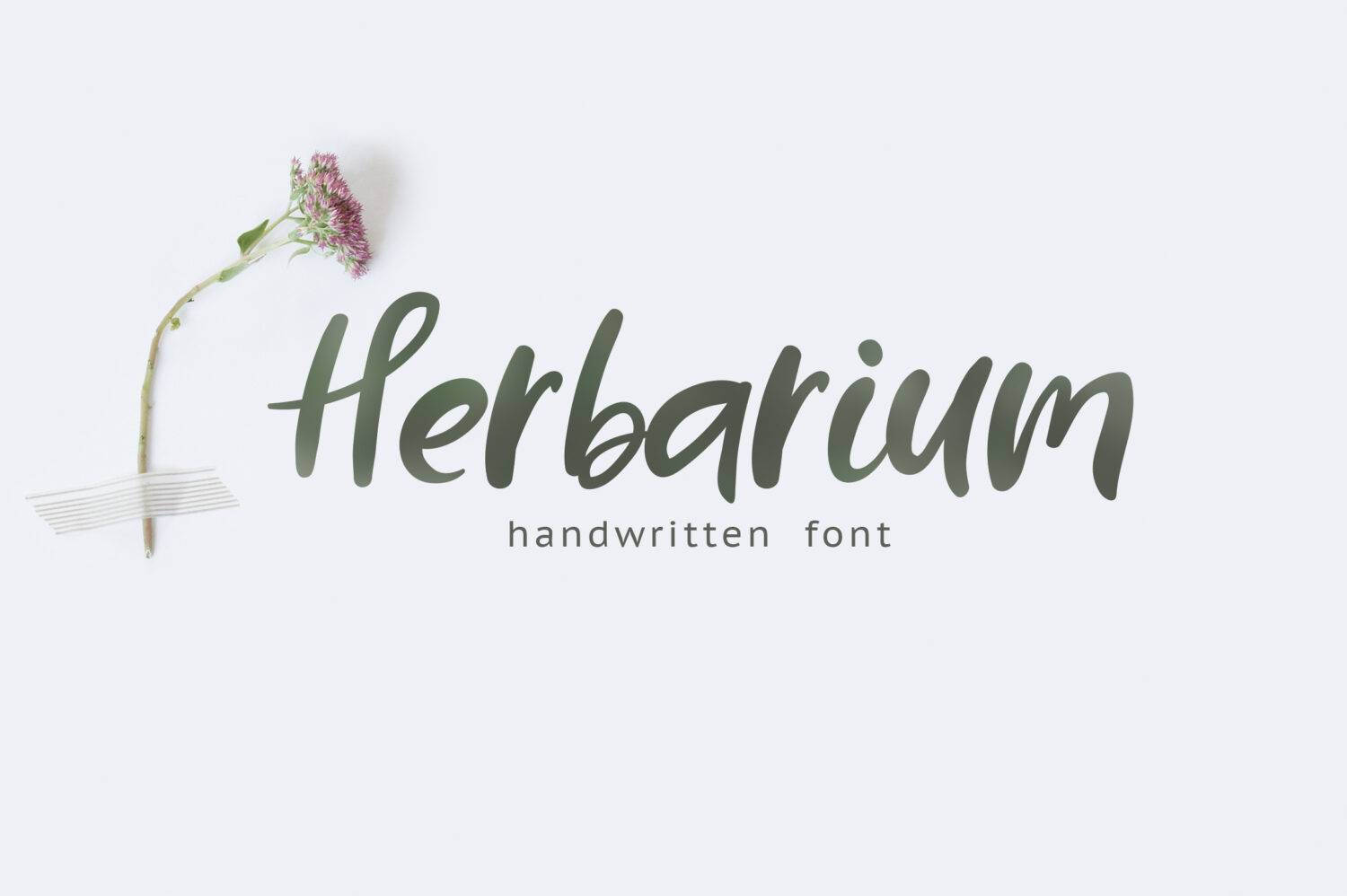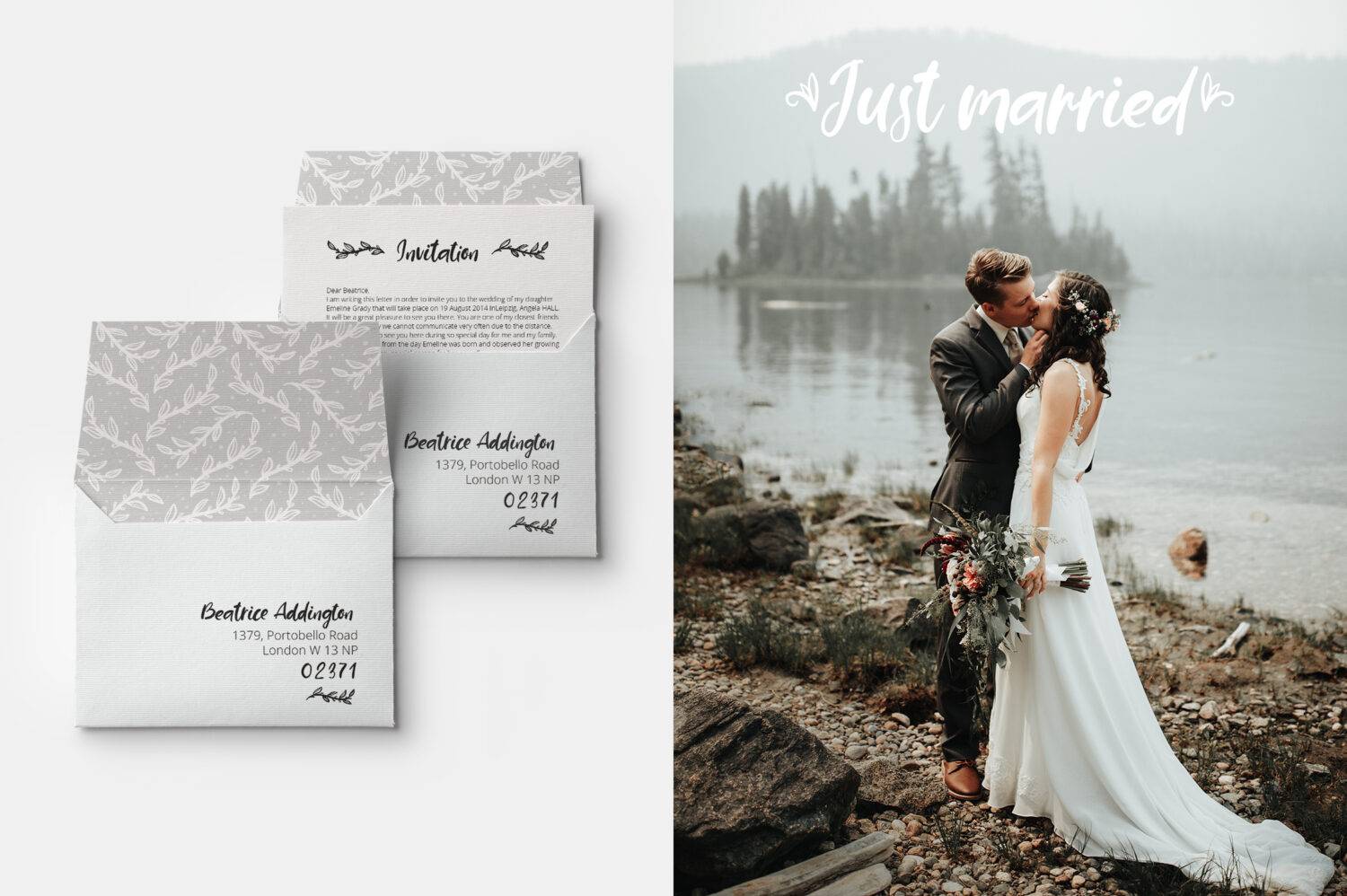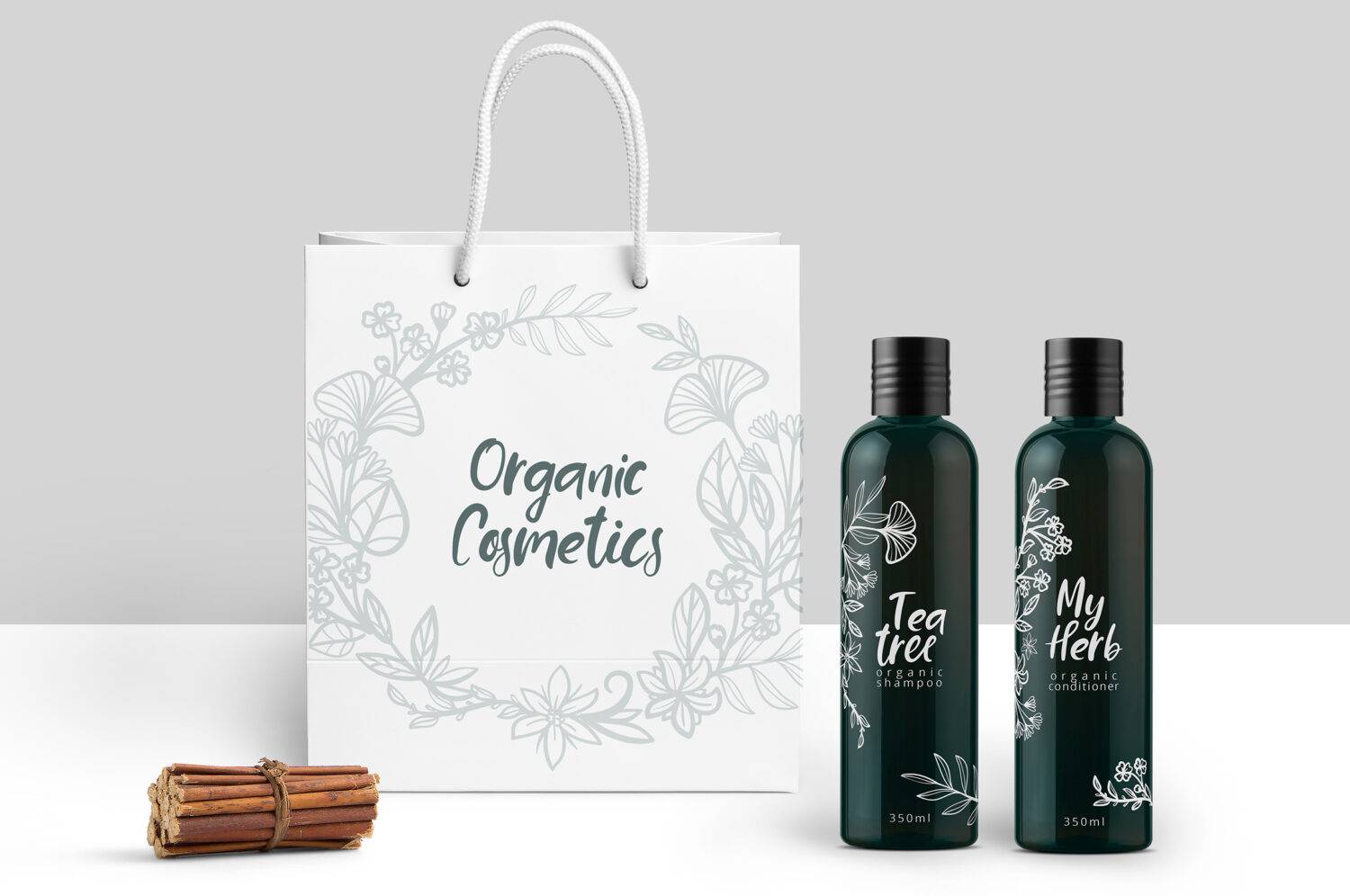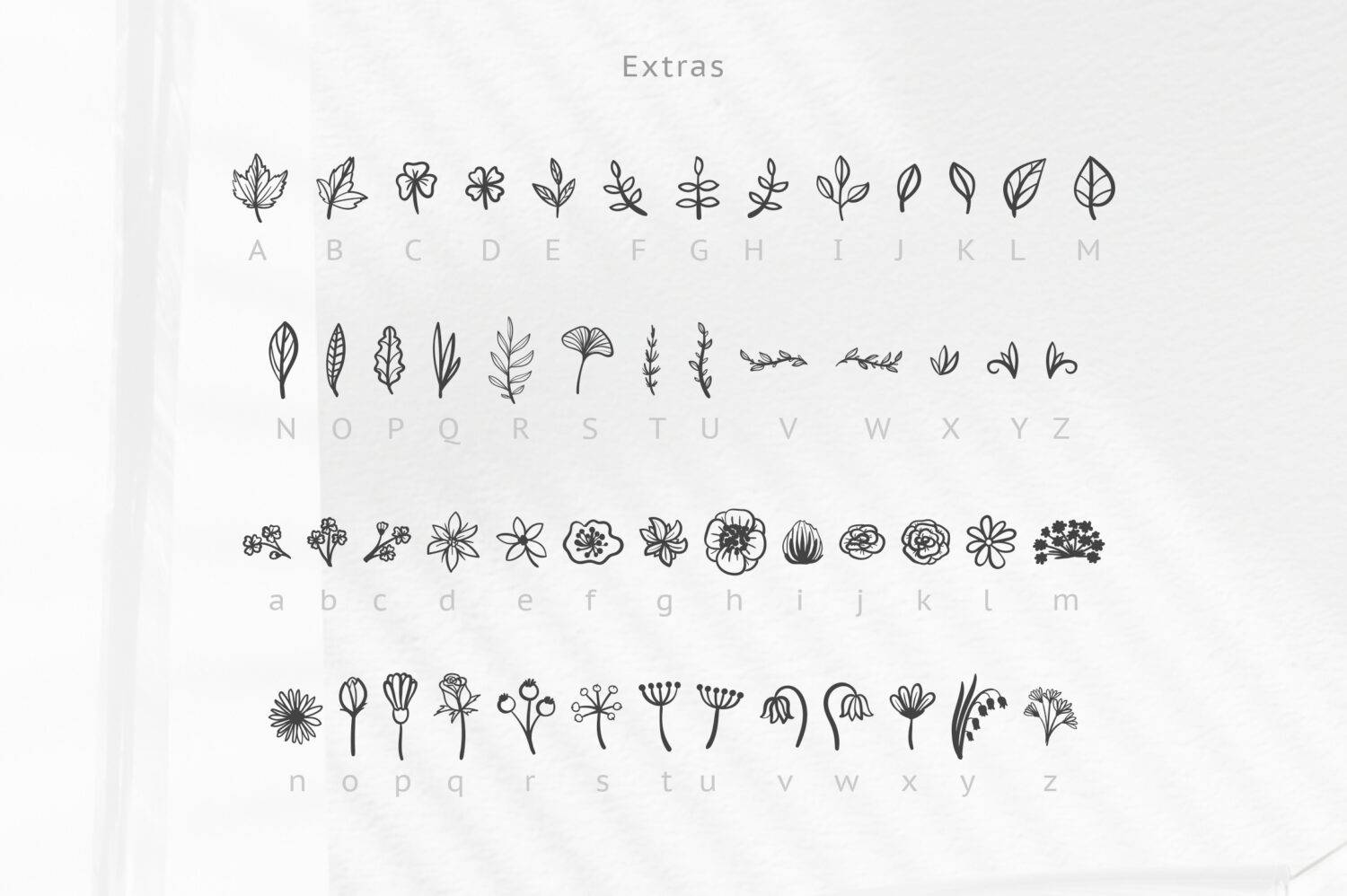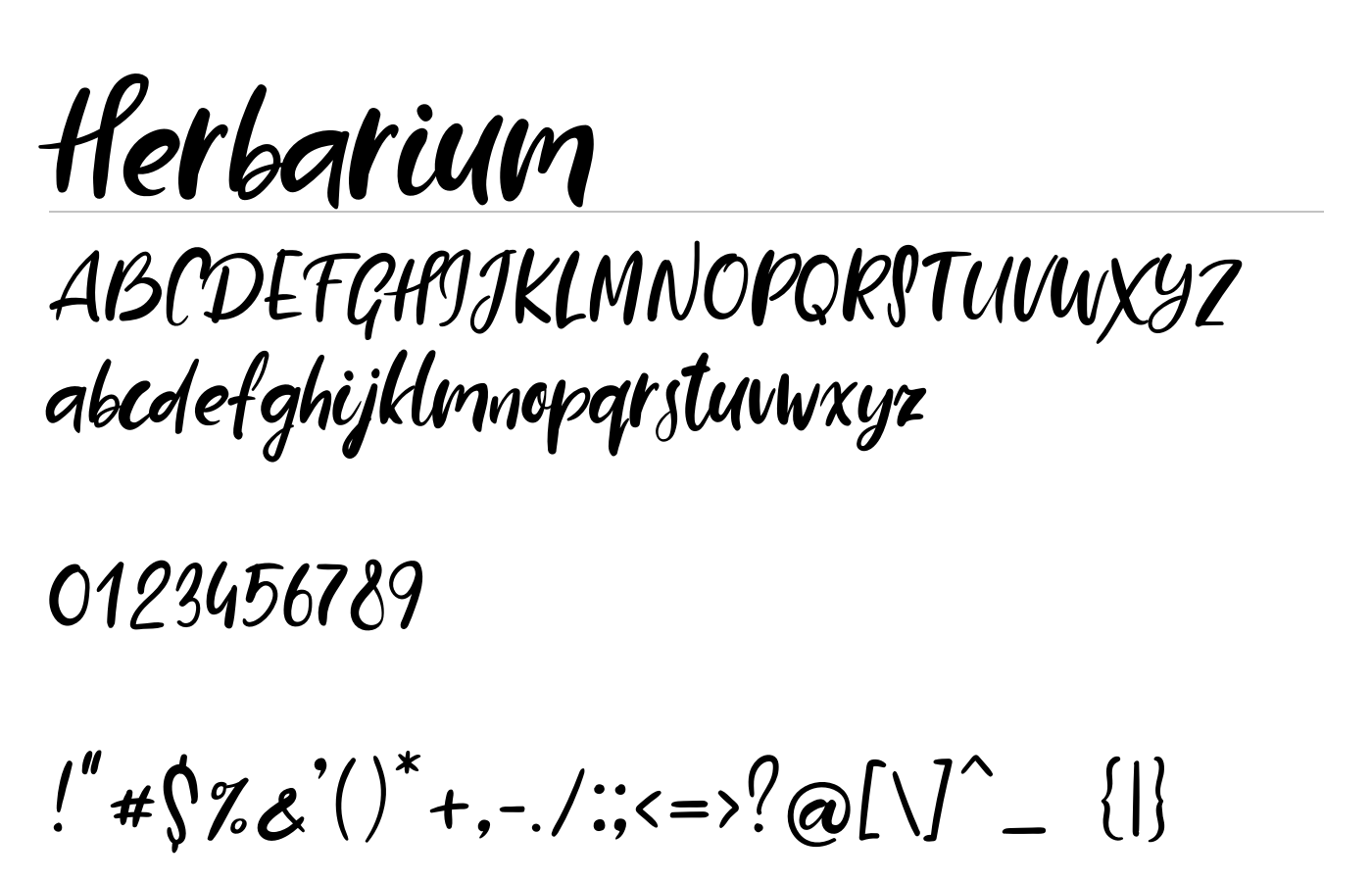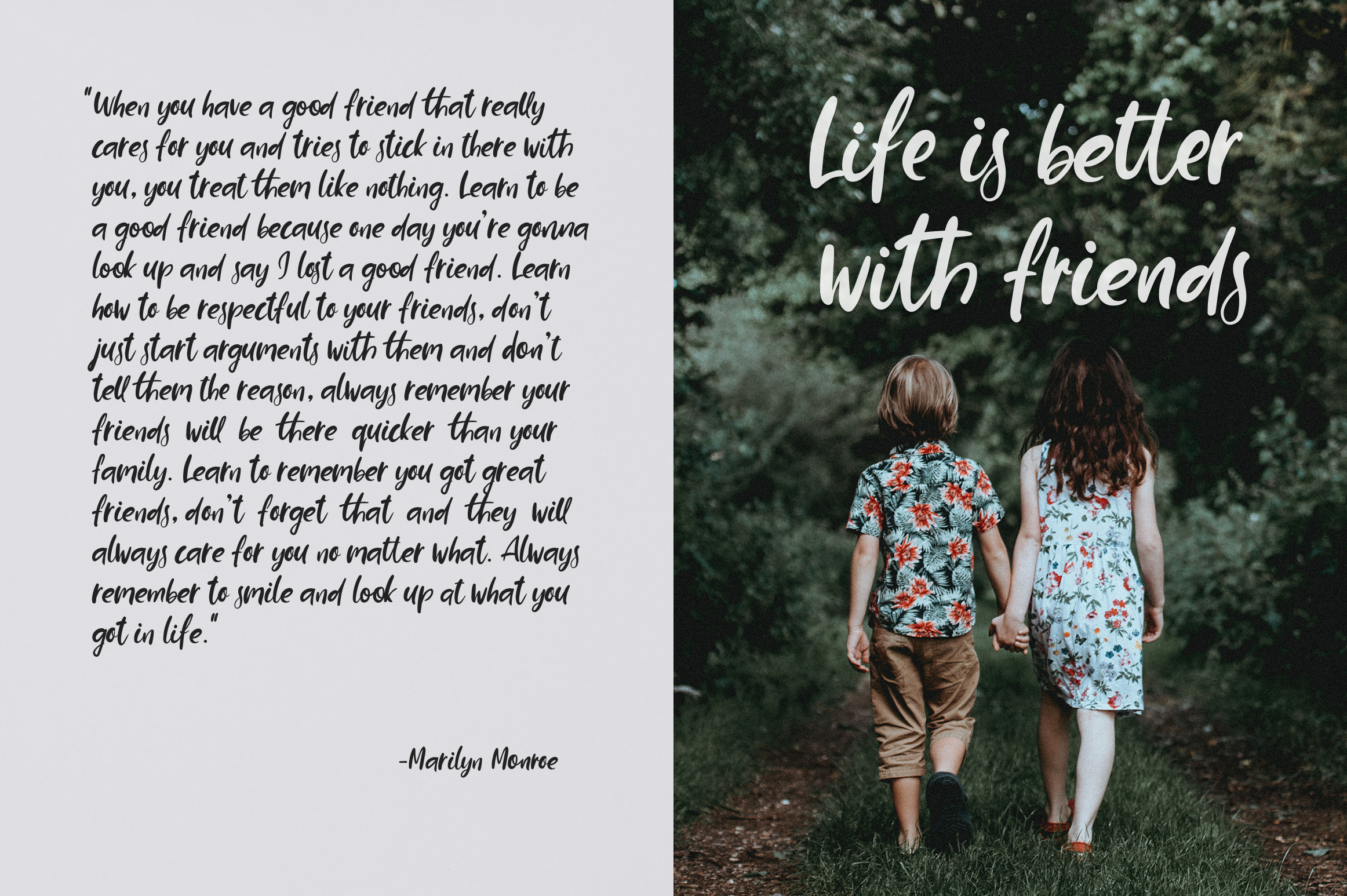
Herbarium is a lively, casual script font featuring smooth, fluid strokes that mimic natural handwriting with a slightly bold weight and moderate contrast. Its playful yet organic character makes it perfect for projects that want to convey warmth and personality, such as branding, invitations, and creative headlines. This font works well where a friendly, approachable vibe is needed, offering clear legibility with a stylish handwritten flair.
Herbarium
About Herbarium
| Font family | Herbarium |
| Designer | Anna Markovets |